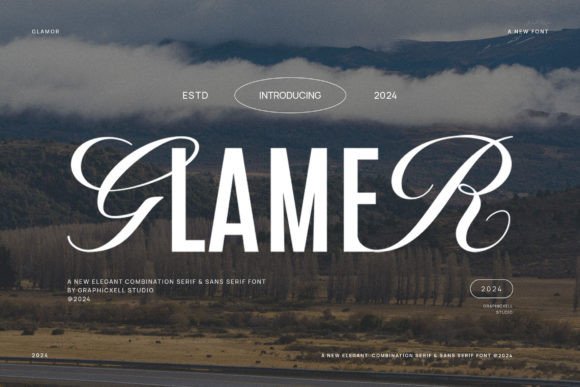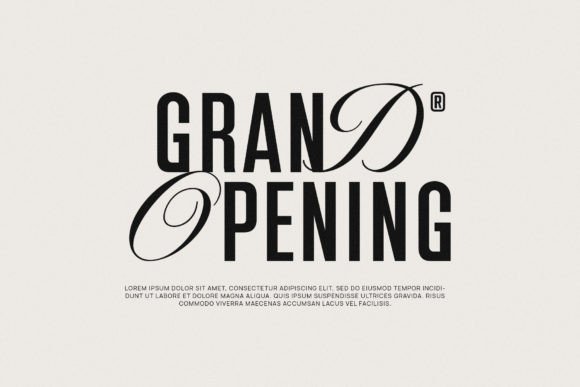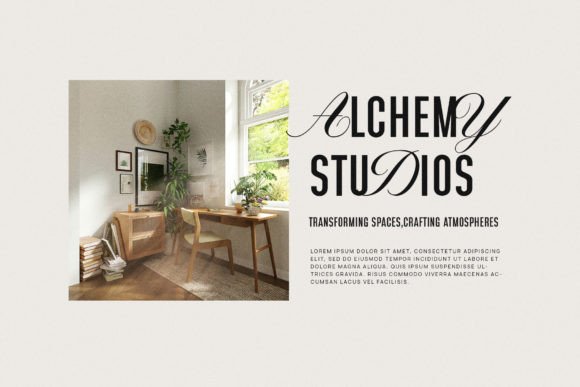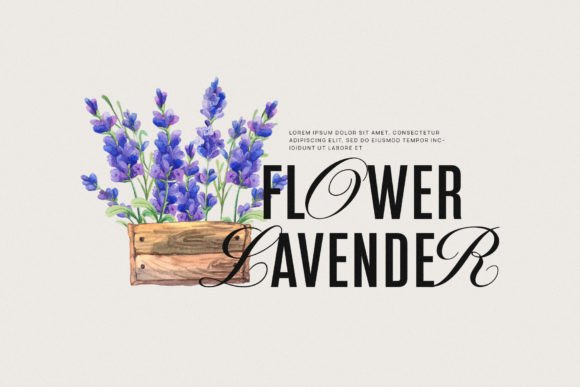
Glamer Font: Elegant Serif for Modern Logo Design & Wedding Invitations
About the Glamer Font
The wait is over! The incredible Glamer Font is now available for your design toolkit. Glamer is a serif font combined with a classy and modern style. This type of font is very suitable for your various needs such as branding projects, logos, wedding designs, social media posts, advertisements, product packaging, product designs, labels, photography, watermarks, invitations, stationery, and any project that needs and elegant touch.
Glamer’s elegant serif forms excel in headlines, logos, and short-form text applications like invitations and social media graphics. Its refined aesthetic lends itself well to luxury branding and projects requiring a sophisticated feel. However, the detailing may prove less legible in body text or UI elements requiring extended readability.
Pairing Glamer effectively depends on the desired emphasis. For a classic yet modern feel, consider pairing it with a clean sans-serif like Montserrat or Lato. To enhance its luxurious feel, a delicate script font such as Great Vibes can create a harmonious balance. A geometric sans-serif like Futura can provide a striking contrast, ideal for creating visual interest in projects where Glamer is used for headlines or prominent branding elements.
Glamer projects a sophisticated and modern personality, conveying both elegance and a touch of timeless appeal. It’s best suited for brands that value quality, craftsmanship, and a refined visual identity.
Glamer Font Usage Examples
Glamer Font Example